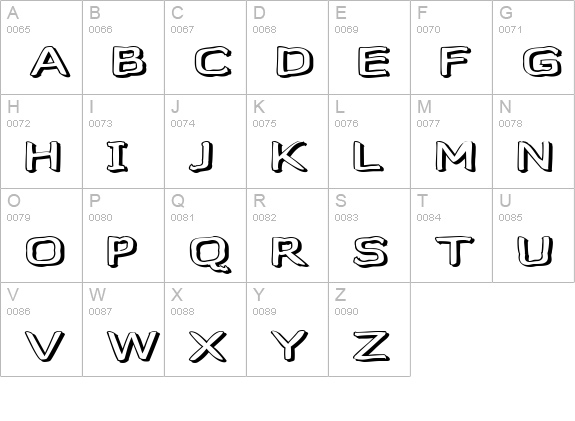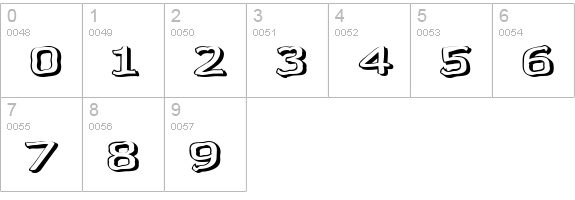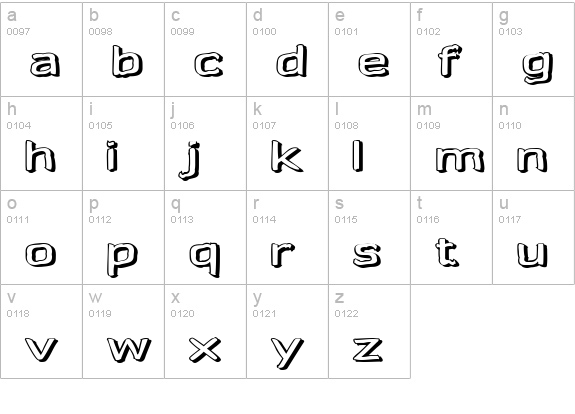
Gazzarelli Font Details
Gazzarelli font is a modern and stylish typeface that exudes elegance and sophistication. With its sleek lines and unique curves, this font is perfect for making a statement in any design project. Whether you're creating a logo, poster, or website, Gazzarelli font will add a touch of class and professionalism. Best of all, Gazzarelli font is completely free to download at FontsMarket.com. This means you can easily access this stunning font and incorporate it into your projects without any cost. Don't miss out on the opportunity to enhance your designs with the beauty of Gazzarelli font - download it for free today!